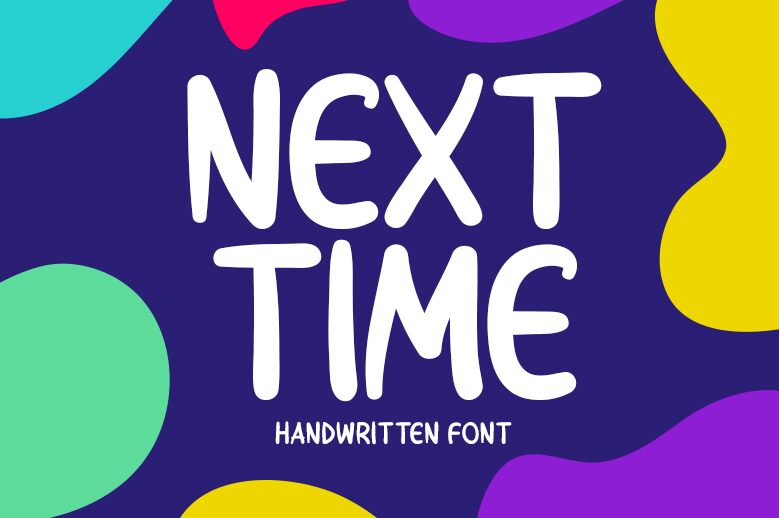
Next Time, a font crafted by Md Shohail Bhuian, exudes the charm of personal touch with its handwritten style. This font's fluidity mirrors the natural variations one would find in human penmanship, giving it an organic and intimate feel. The aesthetic appeal lies in its imperfections-each letter carries a distinct personality that stands out on both digital screens and printed media.
Embracing casual elegance, Next Time is versatile for various creative endeavors. Its laid-back vibe fits perfectly within informal contexts such as invitations, greeting cards, or any project seeking to convey warmth and approachability. Similarly, its personable nature can breathe life into branding projects or editorial designs that aim for a friendly and relatable voice.
The individuality of Next Time ensures that it captures attention while maintaining readability-a balance essential in effective design. Its potential applications are numerous, making it a valuable addition to any designer's toolkit seeking to add a handcrafted essence to their work.